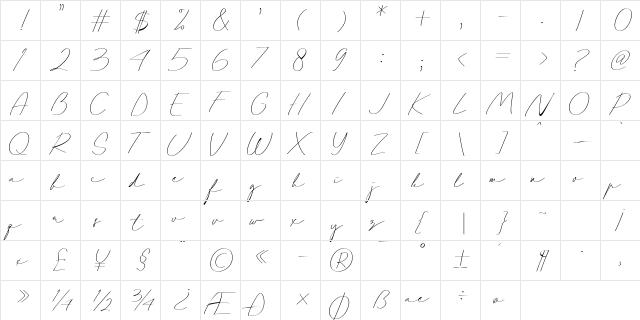
Unforgettable Personal Use Regular
| Designer | PS. Ari Setiawan |
Design Context for Unforgettable Personal Use Typeface
Unforgettable Personal Use is a composed and adaptable typeface that performs quietly and consistently across a wide range of design contexts.